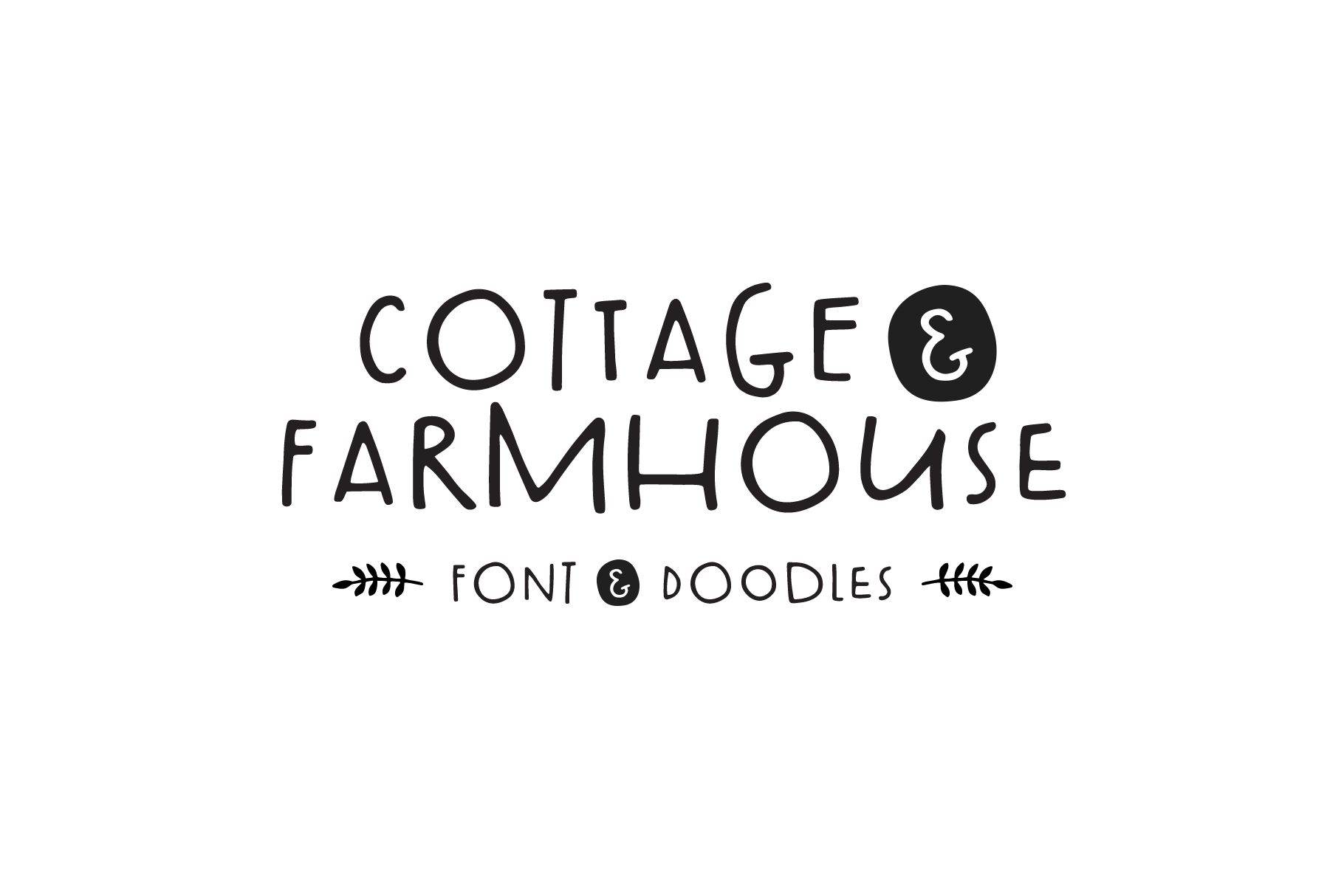
Cottage & Farmhouse Font + Doodles
Cottage & Farmhouse is a charming, sweet, and simple sans that comes with an alternate version and a bunch of fun doodles. This set is perfect for a small business logo or country inspired typography.